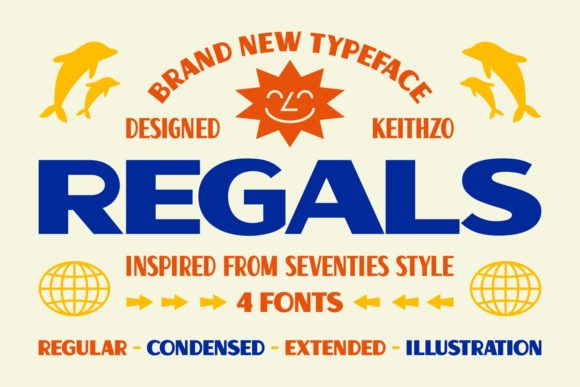
Prepare yourself to embark on a cinematic journey with Regals Font, a sans serif masterpiece that weaves a captivating tale of elegance and nostalgia. Inspired by the silver screens of yesteryear, Regals pays homage to the golden age of cinema, evoking an era of timeless charm and cinematic allure. This versatile display font commands attention with its striking presence, effortlessly adding a touch of retro flair to your creative endeavors.
Step into a world of visual storytelling where every letter becomes a protagonist, conveying emotions and setting the stage for unforgettable narratives. Regals' meticulously crafted characters radiate an air of understated sophistication, ensuring your designs exude an air of timeless elegance. Its clean lines and balanced proportions create a visually harmonious experience, drawing the viewer's eye into the depths of your artistic vision.
Immerse yourself in a world of creative possibilities, where Regals' versatile nature shines. Whether you're crafting stunning logos, captivating movie scripts, or eye-catching headlines, Regals effortlessly adapts to your design needs, delivering a consistent touch of retro charm. Its wide range of applications is a testament to its versatility, making it an indispensable tool in the arsenal of discerning designers.
As you explore the depths of Regals' character set, you'll discover a treasure trove of special features that elevate your designs to new heights. Alternate glyphs and ligatures dance harmoniously together, adding depth and intrigue to your creations. Experiment with different letter combinations and unleash your creativity as you craft visually stunning masterpieces.
With Regals Font as your creative companion, you unlock a world of endless possibilities. Its nostalgic charm and cinematic allure will transport your audience to another era, leaving them captivated by the magic of your designs. Embrace the legacy of Regals, and let your imagination run wild as you create designs that stand the test of time.